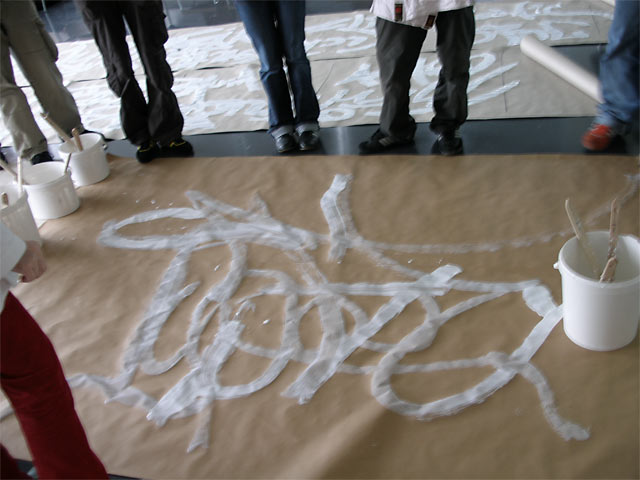
The Grand Final
Miss Silent Judo Seraina Brugger vs. Mr. Silent Judo Woeishi Lean
Mr. Silent Judo Woeishi Lean is just about to fire his angry 'g'.
A two minute battle on 2.5 x 2.5 m field, improvisation.
Seraina has a strong start. She goes for the sentence 'Catch me if you can!' and quickly controls the battlefield. But Woei strikes back with 'It is finished' - and what a style he has! He leaves no chance for Seraina to hit back.
We give one more chance for Seraina. Now, if she's able to knock out, she will win. She has a new 2.5 x 2.5 m field and 1 minute. Seraina goes for 'TYPEMASTER' but Woei bashes with 'Rage'. His extremely angry, beautiful, long, single stroke 'g' finishes the game leaving Seraina to 'TYPE'. Woei is the first champion in this very tough, ground breaking battle.
The winner: Mr. Silent Judo Woeishi Lean! (0-1)